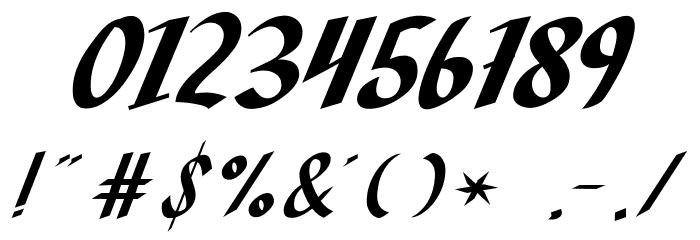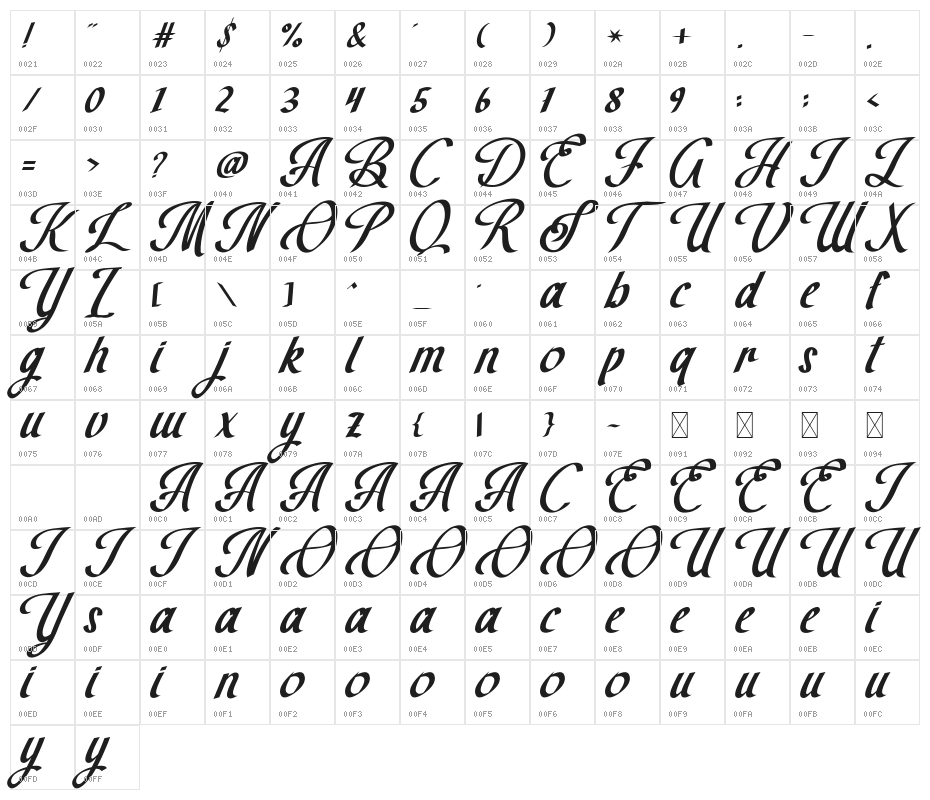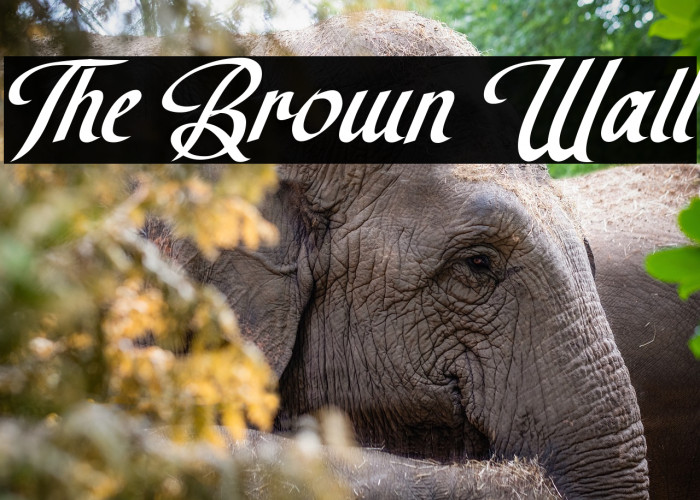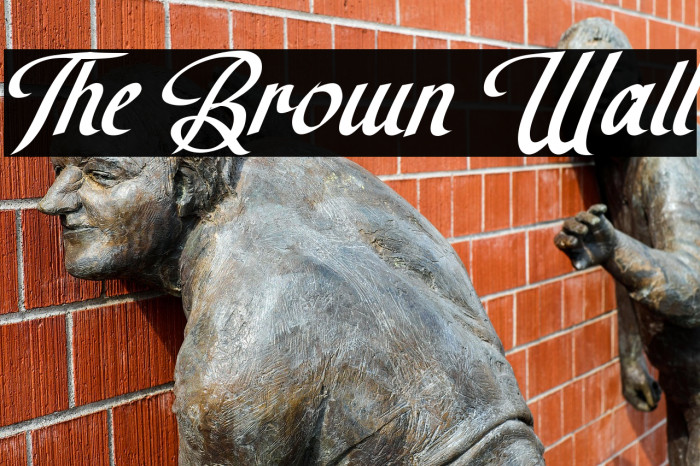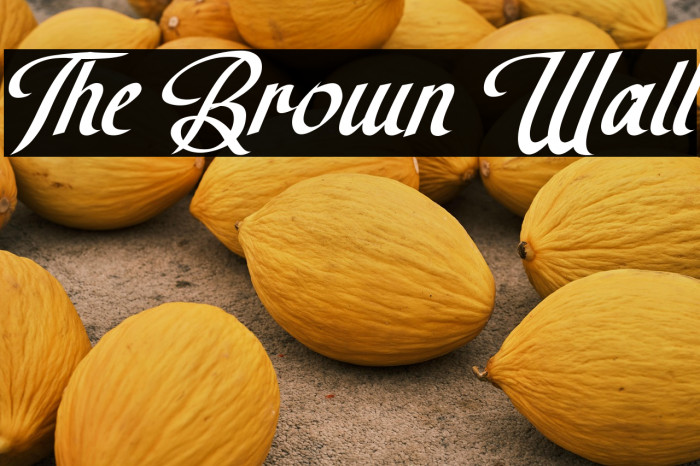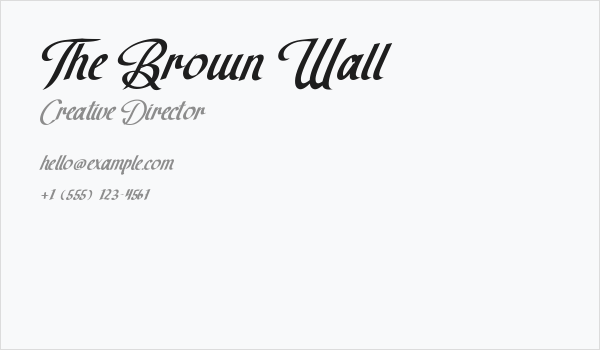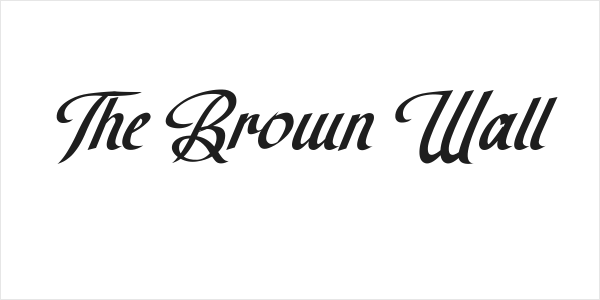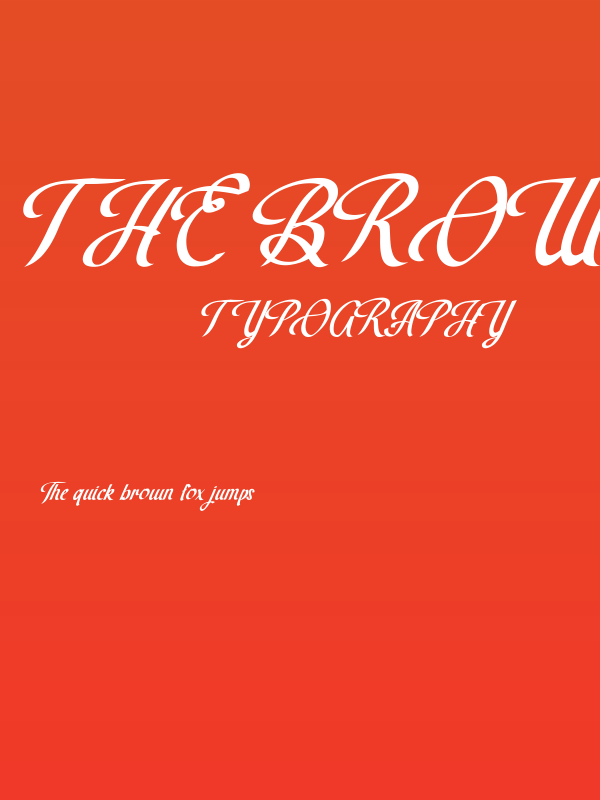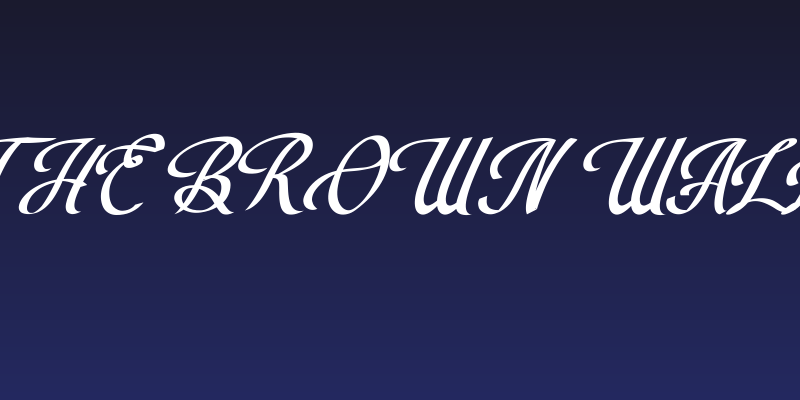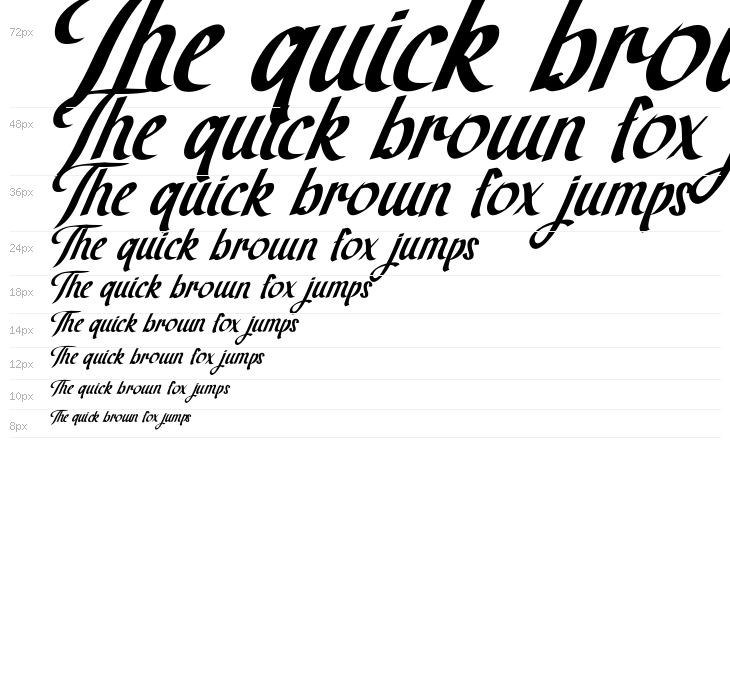
The Brown Wall Font
The Brown Wall Description
This font features an elegant and flowing script style, characterized by its cursive, calligraphic appearance. The uppercase letters are ornate, with sweeping curves and flourishes that give a sense of movement and sophistication. The lowercase letters maintain a consistent slant, enhancing the fluidity and grace of the text. The numerals are bold and slightly italicized, matching the overall style of the alphabet. Special characters are designed with the same attention to detail, ensuring a cohesive look throughout. This font is ideal for projects that require a touch of elegance and formality.
| Overall Style | Elegant, Formal, Calligraphic |
| Proposed Projects | Wedding invitations, elegant branding, formal event programs, luxury product packaging. |